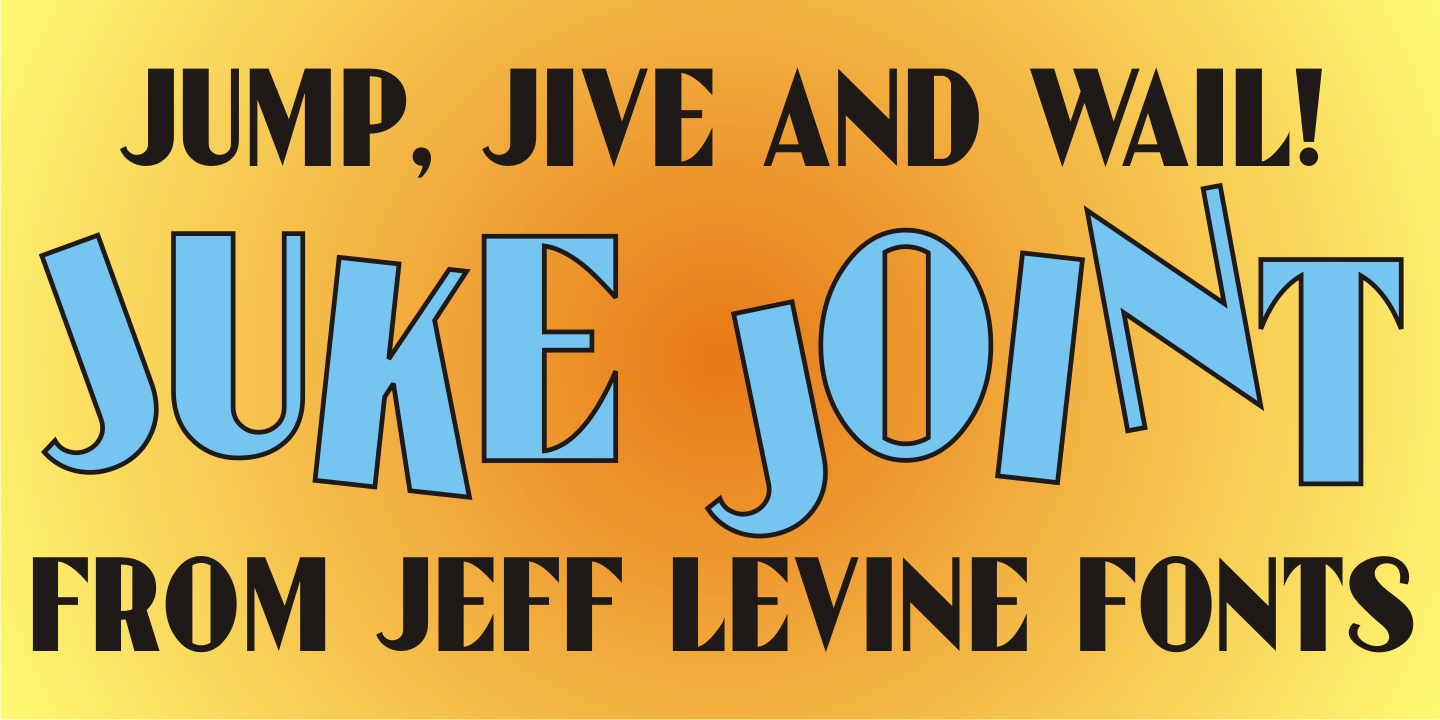
Juke Joint
Although many pieces of sheet music used standardized backgrounds and metal type for their titles and information, there are hundreds of songs with innovative illustrations and clever typography beckoning potential buyers with their cover art.
Whether the era was Post-Victorian, Art Nouveau or Art Deco, the sheer variety of eye-catching images offered visual enticement to the potential customer whilst browsing the local music shop.
Juke Joint by Jeff Levine Fonts